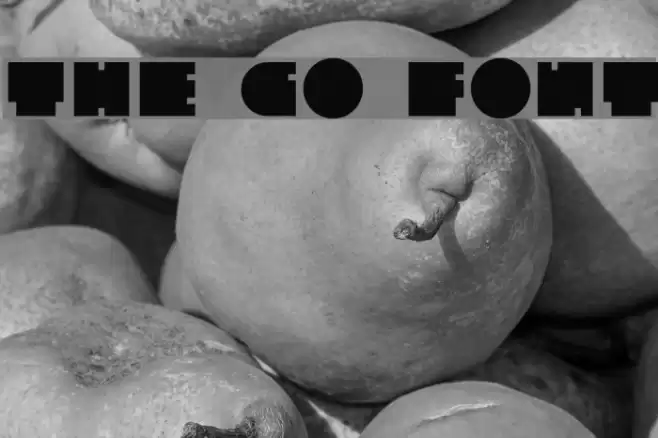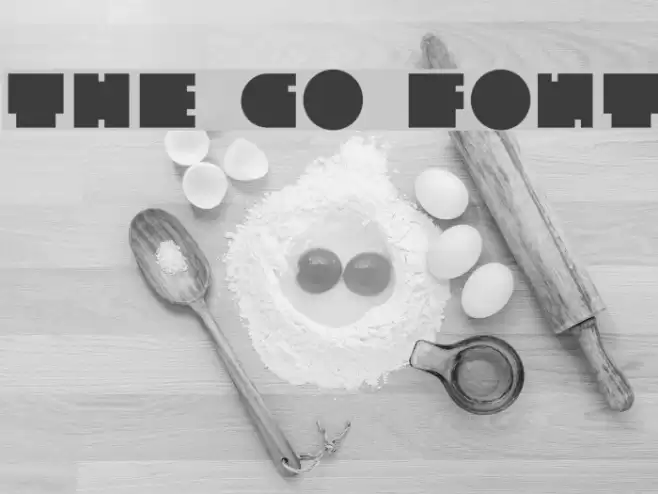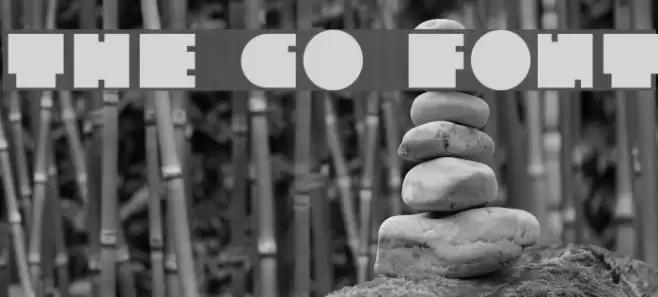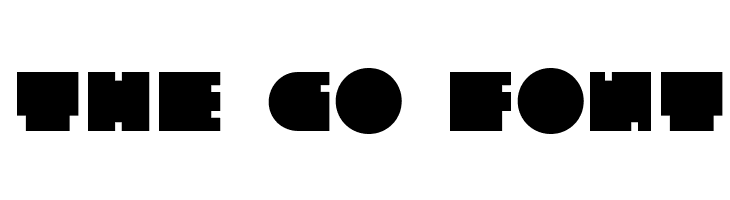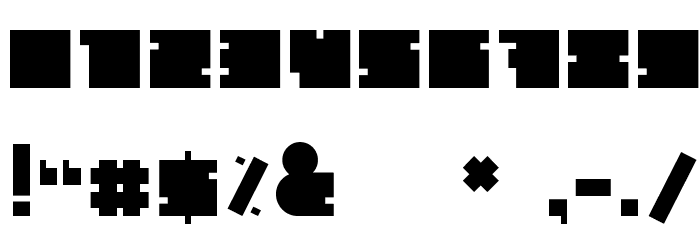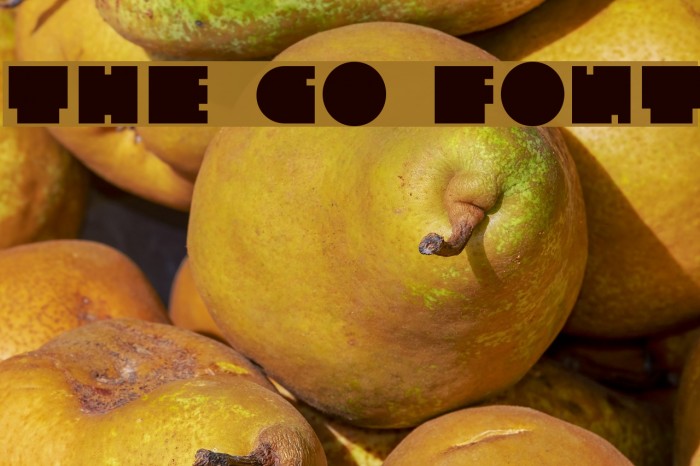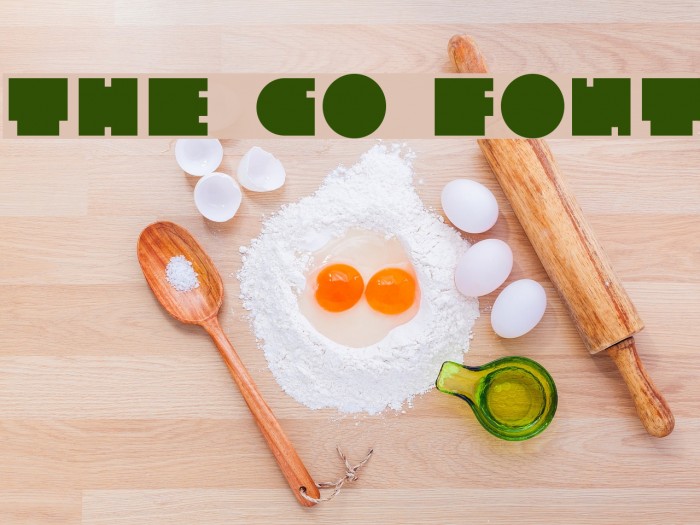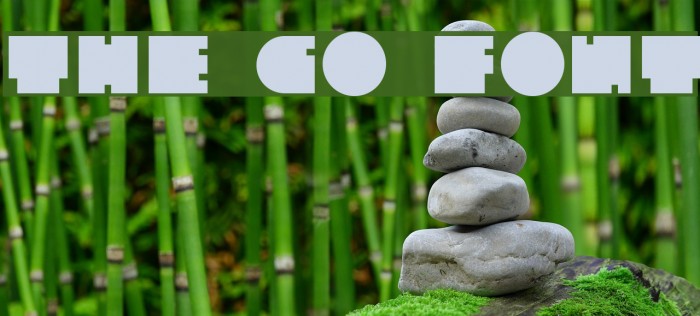
The Go Font Font
The Go Font Description
This font features a bold, geometric design with a strong emphasis on blocky, angular shapes. Each character is crafted with a uniform thickness, creating a cohesive and striking appearance. The uppercase and lowercase letters share a consistent style, with minimal differentiation in size and shape, contributing to a monolithic aesthetic. The numerals and special characters maintain this bold, geometric theme, ensuring visual harmony across all elements. The font's unique style is both modern and retro, reminiscent of digital displays or arcade game graphics. Its solid, impactful presence makes it ideal for attention-grabbing designs.
A bold, geometric font with a modern, retro aesthetic from Crazy fonts.
- Proposed Projects: Ideal for video game graphics, retro-themed posters, digital displays, and branding that requires a strong visual impact.
- Overall Style: Modern, Retro